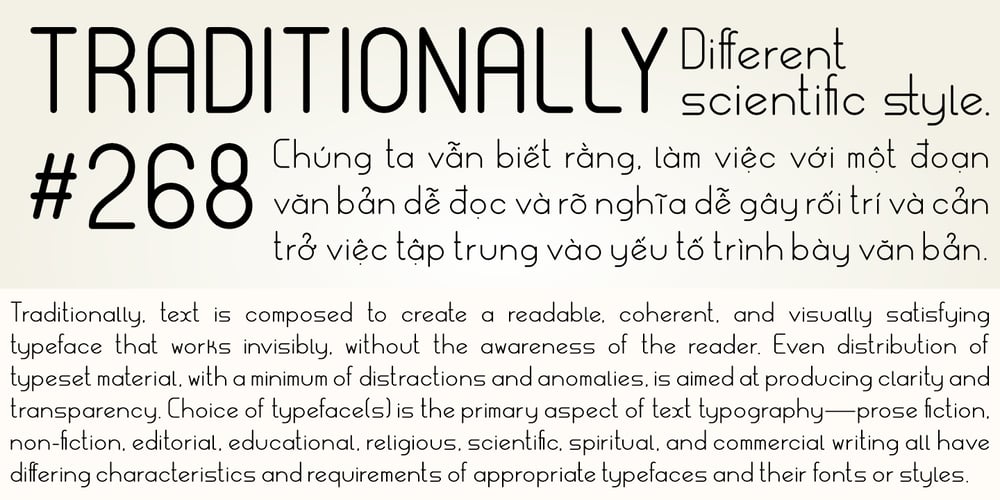
Metricor Font Family was designed by Mahmadiev Hotam and published by Hotam. Metricor contains 5 styles and family package options. Metrica circle is a sans-serif type family of five weights. It was designed by Hotam Mahmadiev. The fonts are based on simple and clean geometric forms. The font contains more than 1700 glyphs. Supported languages: Afrikaans, Albanian, Belarusian, Bosnian, Bulgarian, Catalan, Croatian, Czech, Danish, Dutch, English, Estonian, Finnish, French, German, Greek, Hungarian, Icelandic, Italian, Latvian, Lithuanian, Macedonian, Maltese, Norwegian, Polish, Portuguese, Romanian, Russian, Serbian, Slovak, Slovenian, Spanish, Swedish, Turkish, Ukrainian, Tajik, Uzbek, Vietnamese, Zulu, and other.